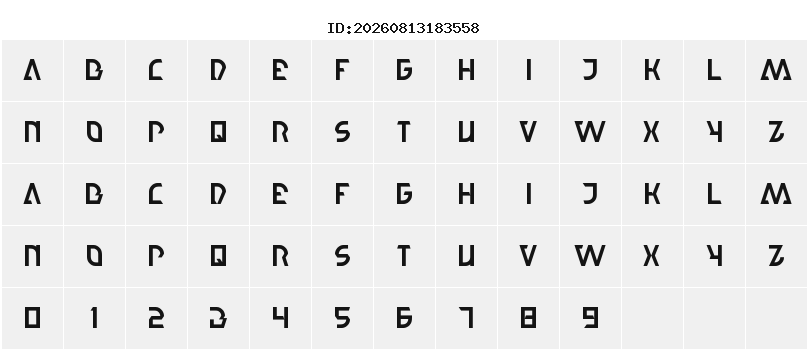
step forward Preview
• Font Name: step forward
• Font ID: step forward:Version 1.00
• Full Font Name: step forward
• Version: Version 1.00 December 10, 2013, initial release
• PostScript Name: stepforward
About step forward.ttf
step forward.ttf is a modern, elegant sans-serif font designed for ultimate readability and visual harmony. Perfect for branding, headlines, web design, and print materials.